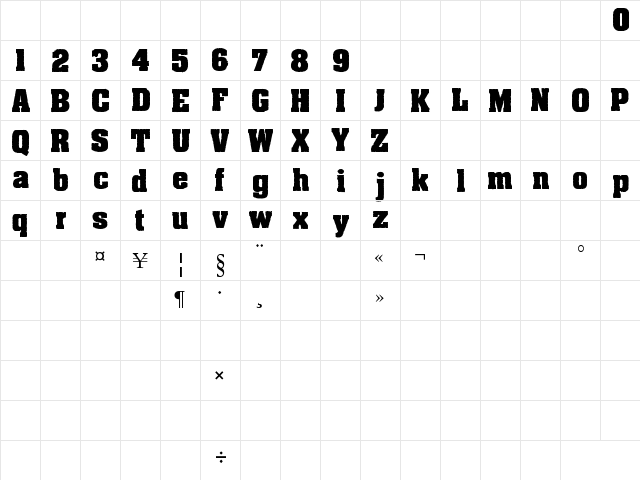
Dirty Old Town Regular
Design Context for Dirty Old Town Typeface
Dirty Old Town is a composed and adaptable typeface that performs quietly and consistently across a wide range of design contexts.